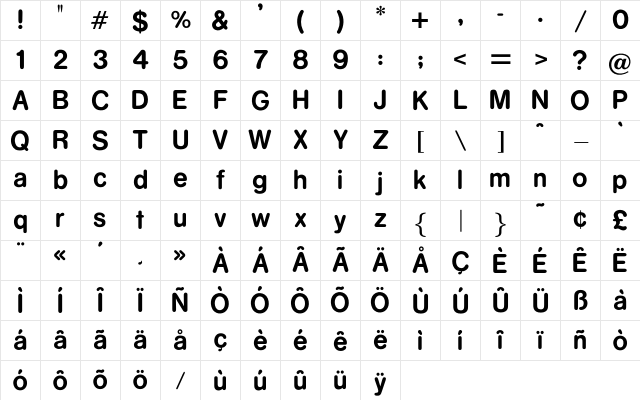
OPTIFormula-One Regular
Design Context for OPTIFormula-One
OPTIFormula-One is a composed and adaptable typeface that performs quietly and consistently across a wide range of design contexts.